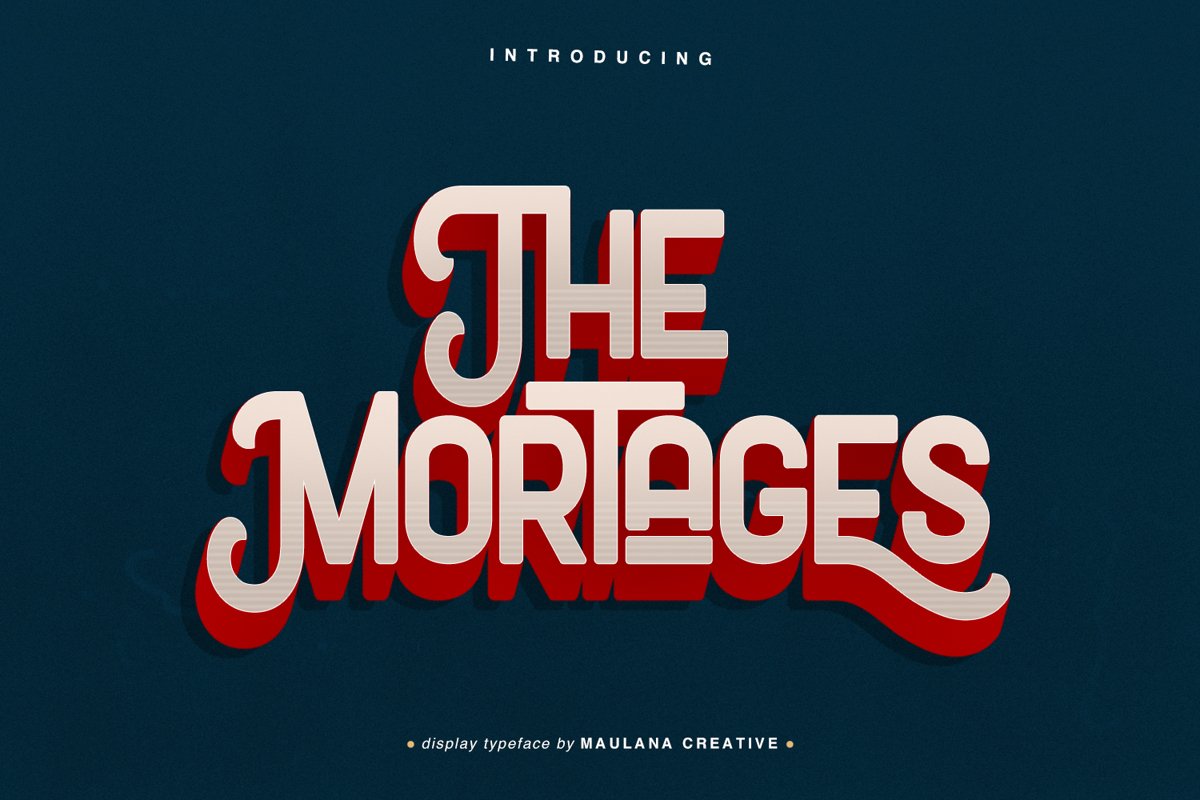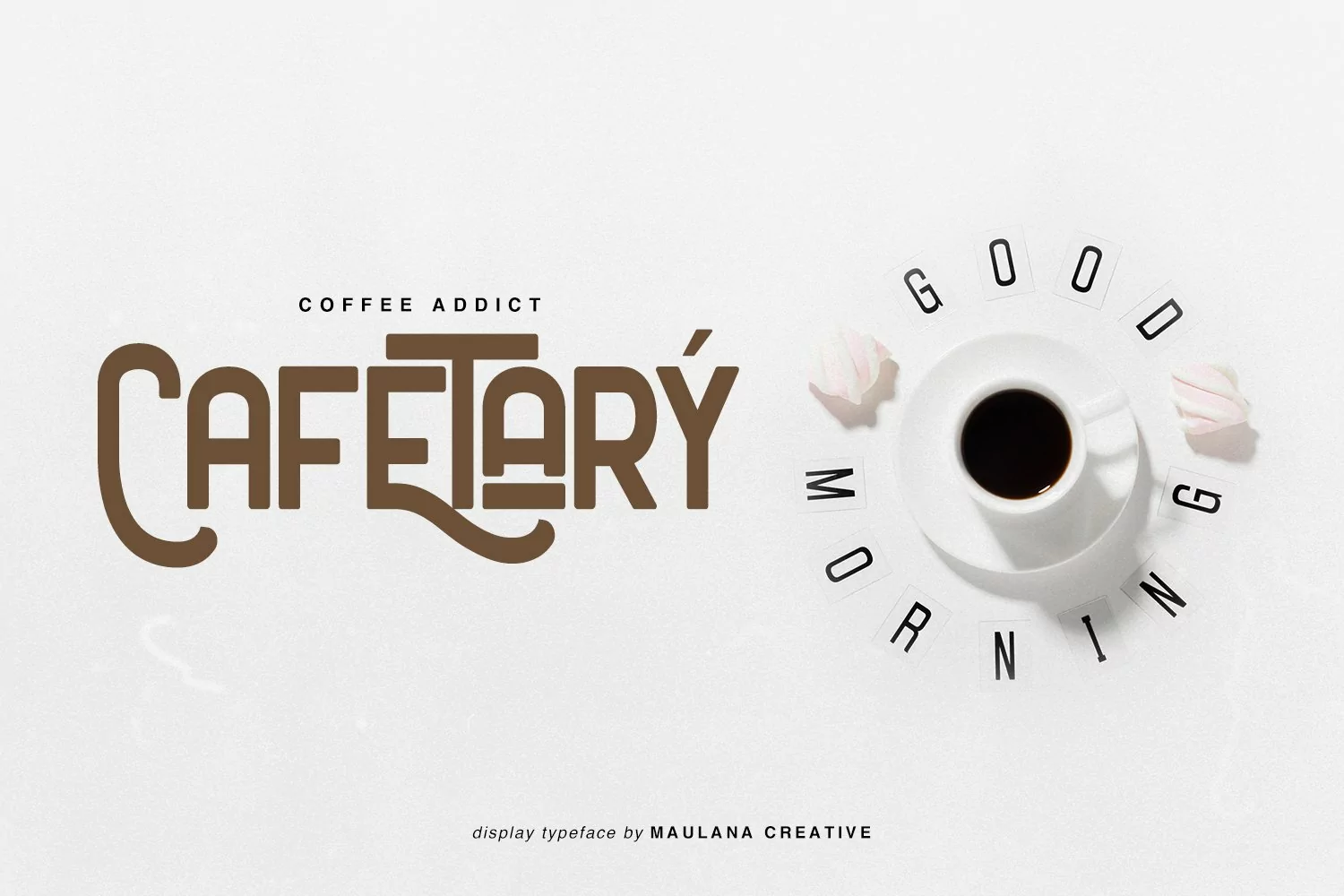
Introducing The Mortages - Modern Display Font
The Mortages is a handmade Victorian handlettering, which is combining modern and classic typography with some awesome alternates. Yes we back to early 1800s, bring classic touch on this decade.
- Ligature
- Fonts include multilingual support for; ä ö ü Ä Ö Ü ß ¿